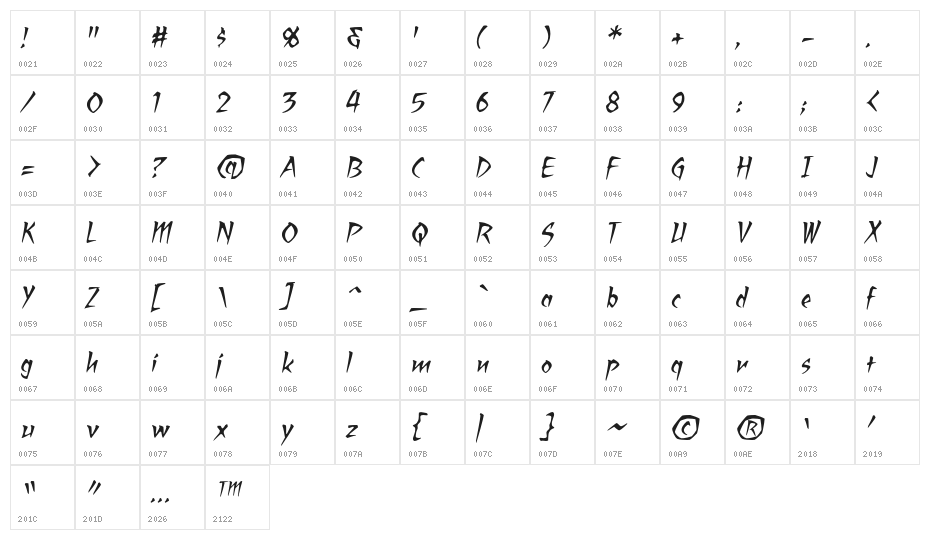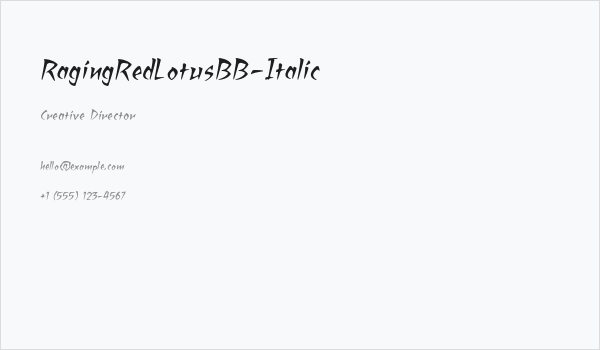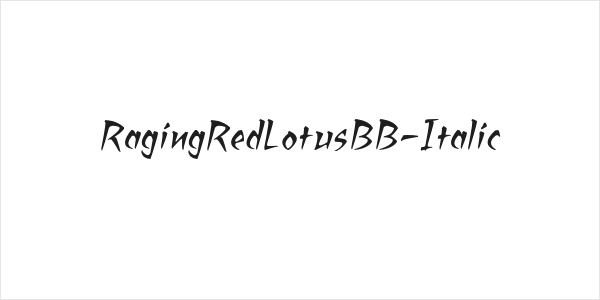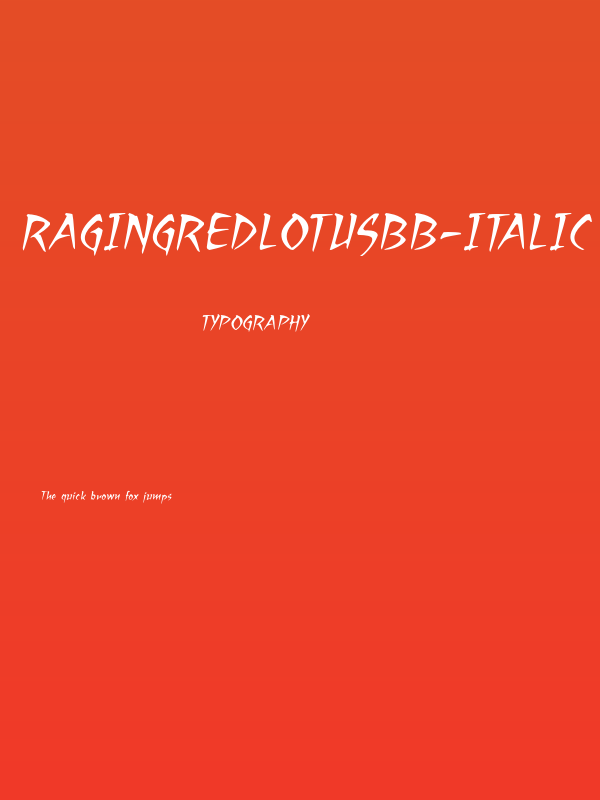
RagingRedLotusBB-Italic Font
RagingRedLotusBB-Italic Description
This font exudes a dynamic and energetic style, characterized by its sharp, angular strokes and italicized form. The letters have a hand-drawn appearance, with varying thickness that adds a sense of movement and flair. The uppercase letters are bold and commanding, while the lowercase letters maintain a consistent style that complements the uppercase. Numbers and special characters follow the same energetic design, making the font versatile for various uses. The overall impression is one of boldness and creativity, suitable for projects that require a strong visual impact.
| Proposed Projects | Ideal for posters, album covers, video game graphics, and any project needing a bold, energetic typeface. |